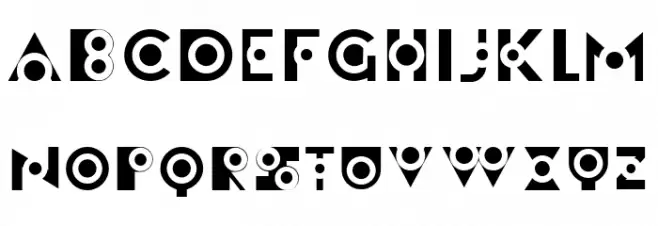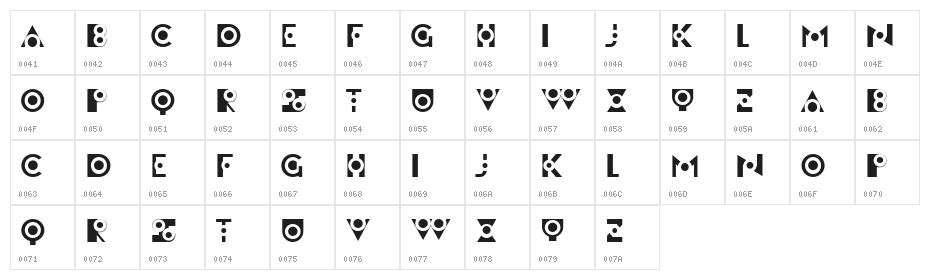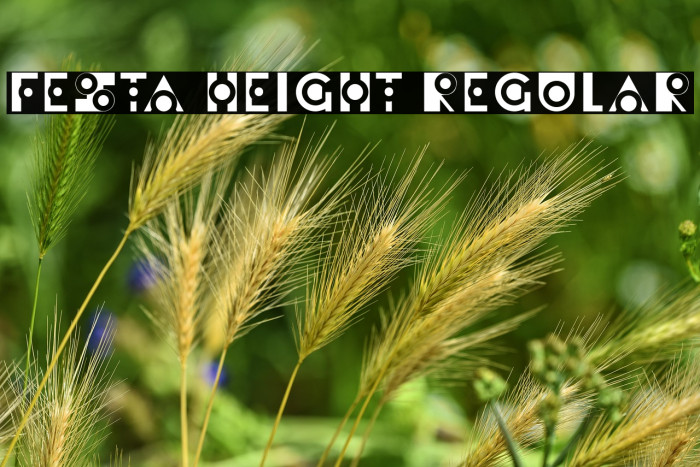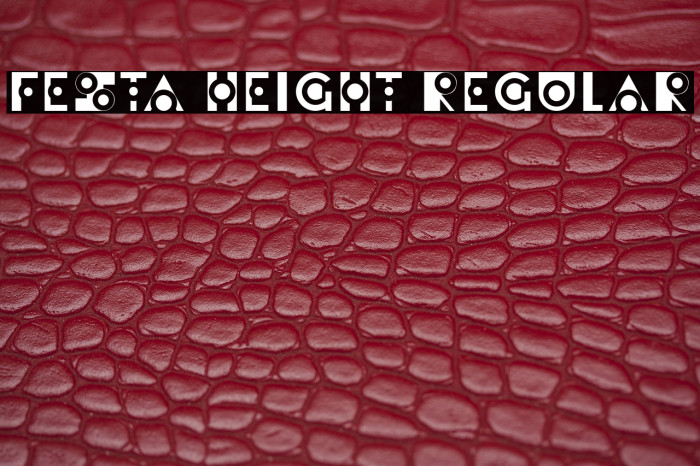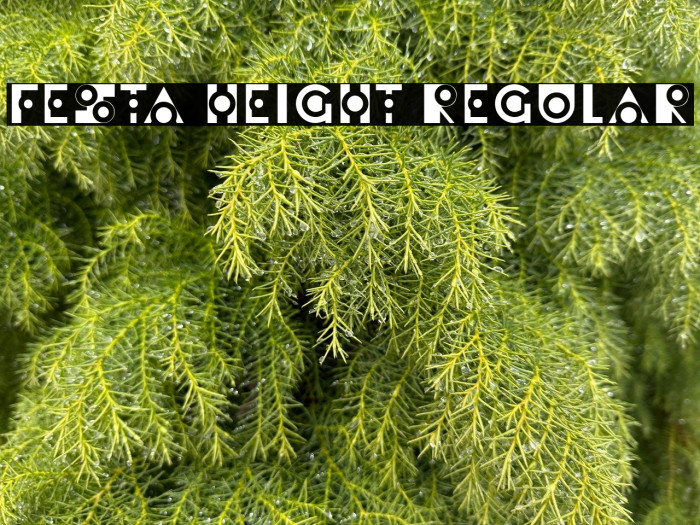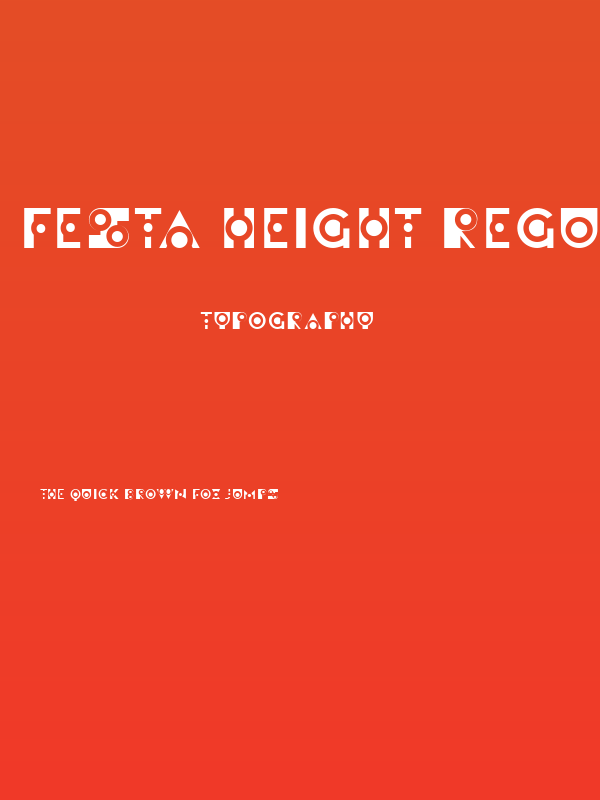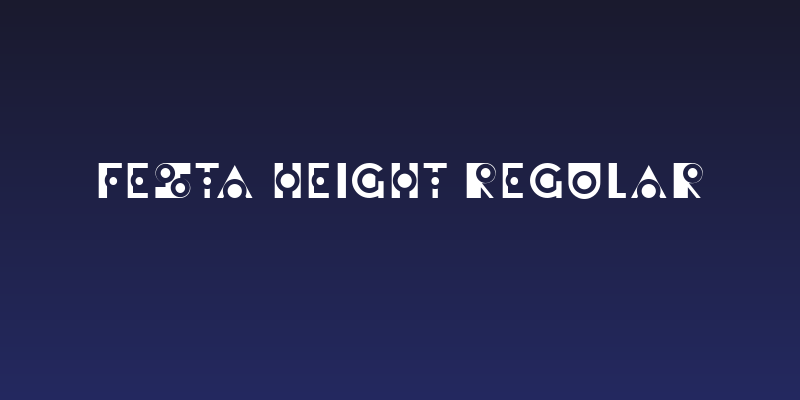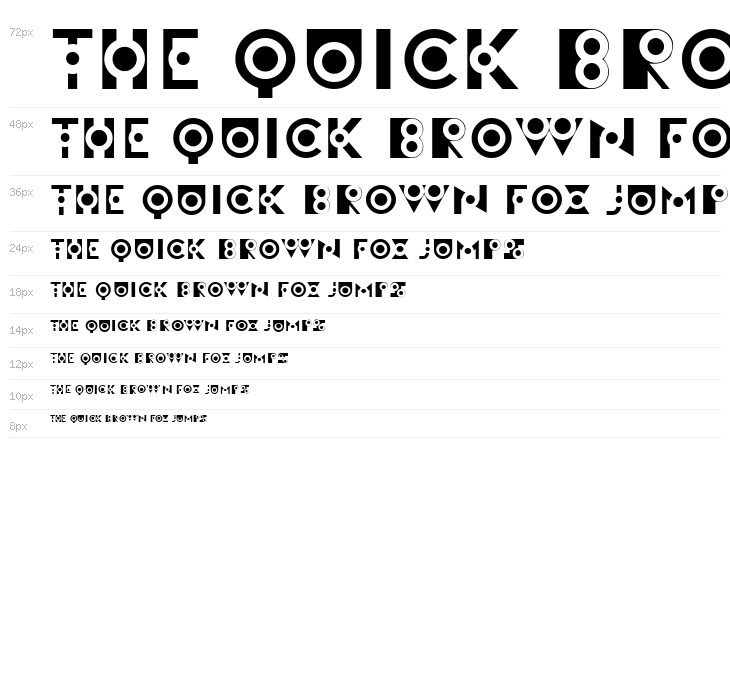
Festa Height Regular Font
Festa Height Regular Description
This font features a bold and geometric design, characterized by its use of strong, angular shapes and circular elements. The letters are constructed with a mix of solid and hollow forms, creating a playful yet structured appearance. The uppercase letters are particularly striking, with each character incorporating unique geometric patterns that add visual interest. The font's style is modern and artistic, making it suitable for creative and eye-catching designs. Its distinctiveness lies in the balance between the bold strokes and the negative space, which enhances readability while maintaining a decorative flair.
| Proposed Projects | Ideal for posters, branding, album covers, and modern art projects. |